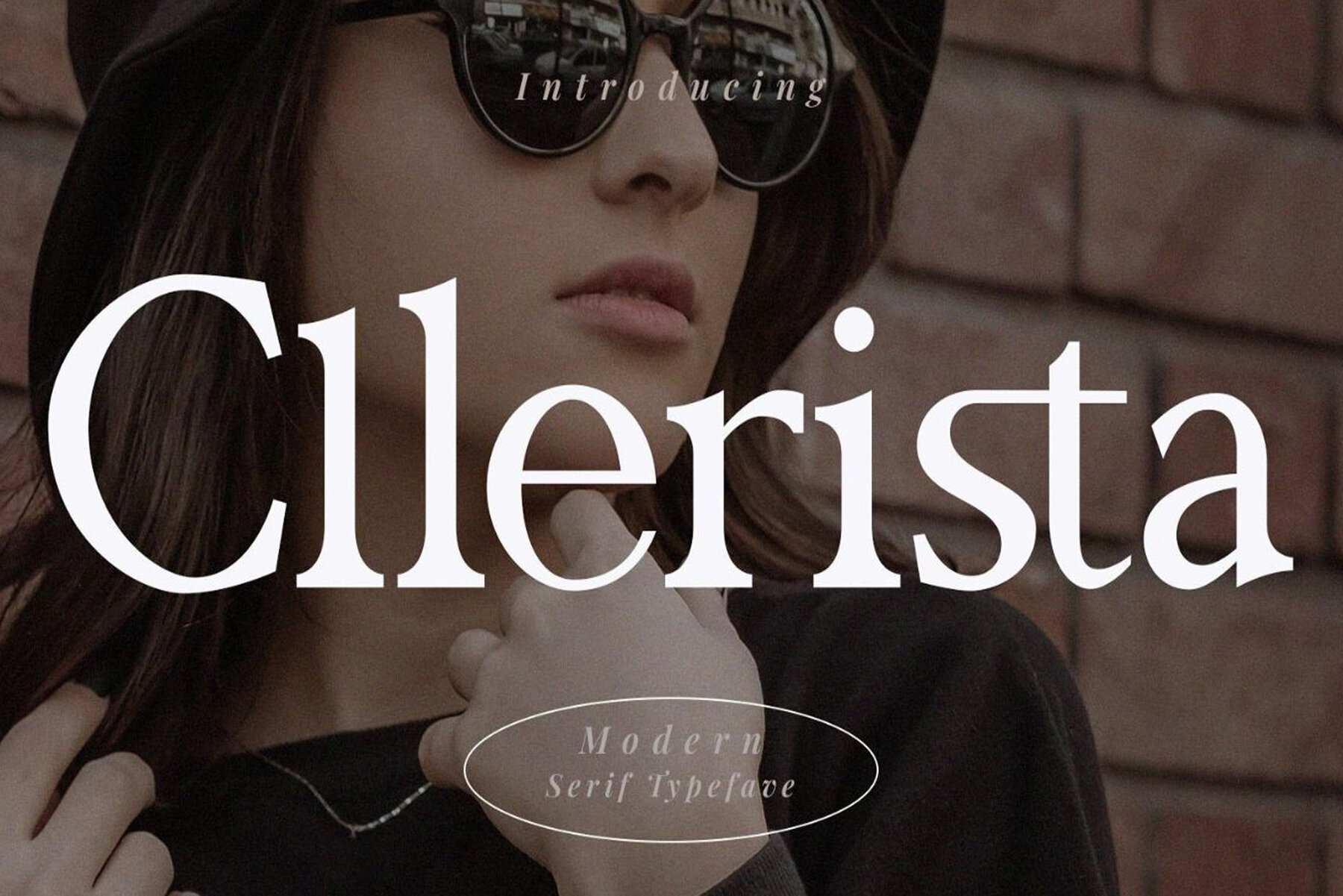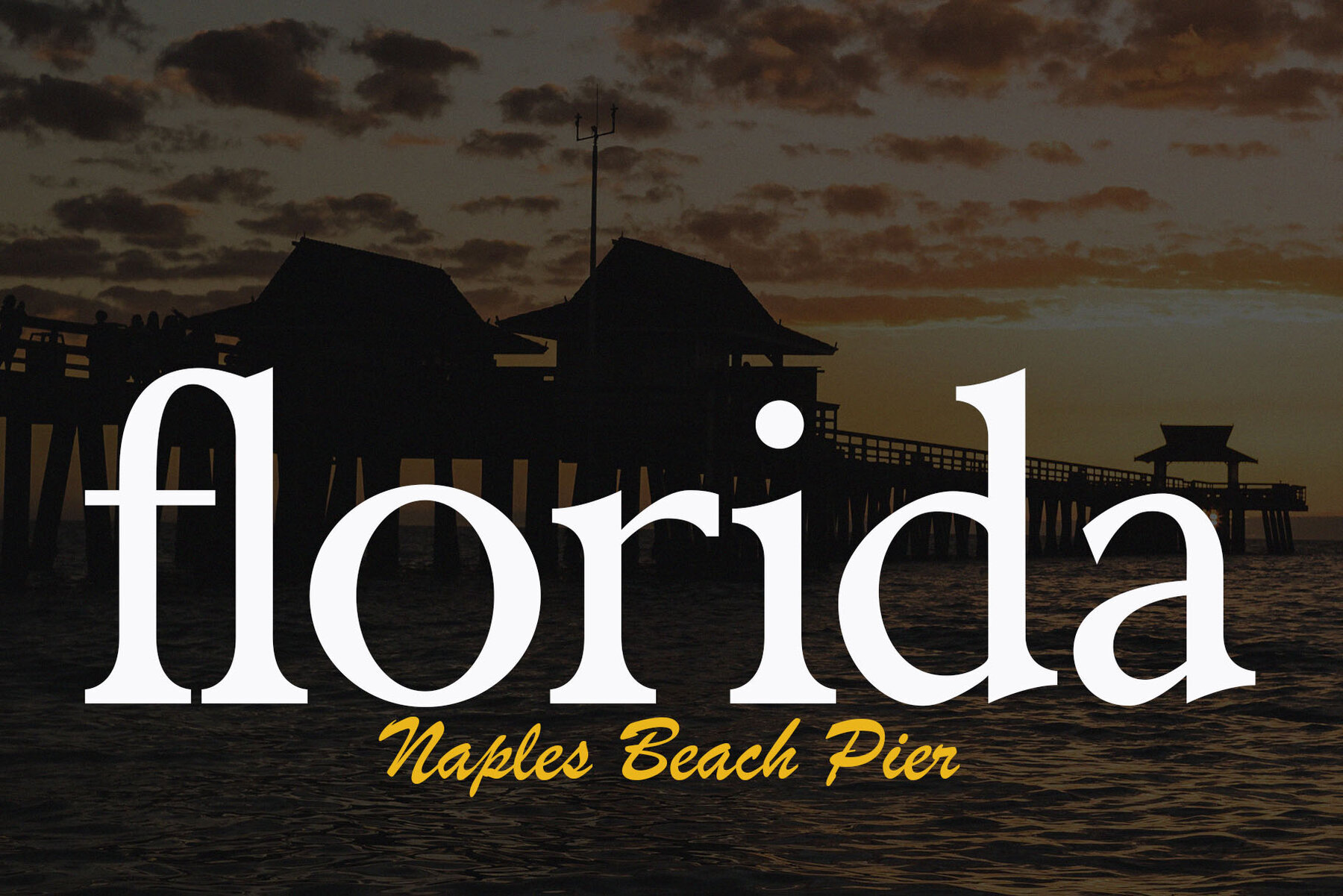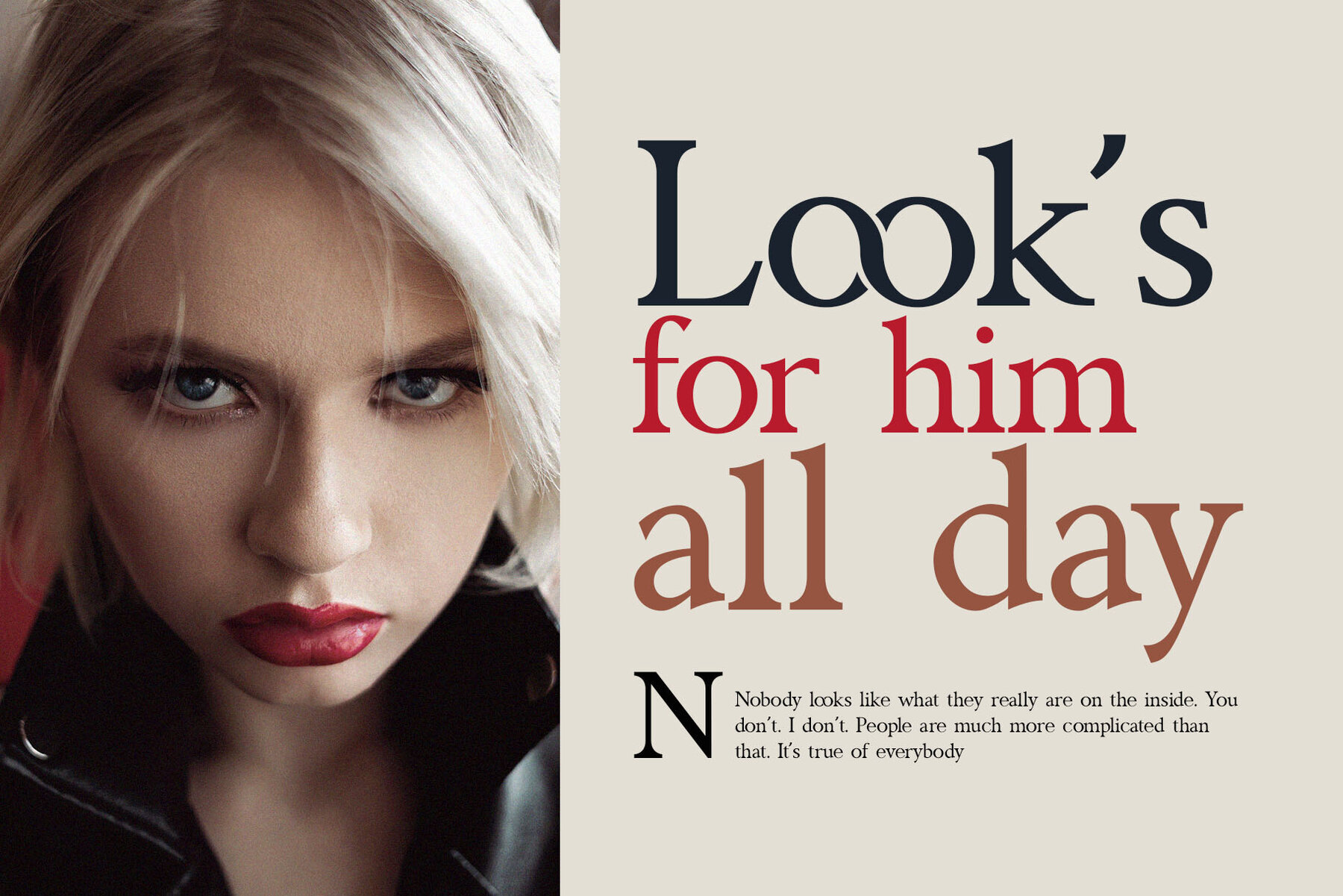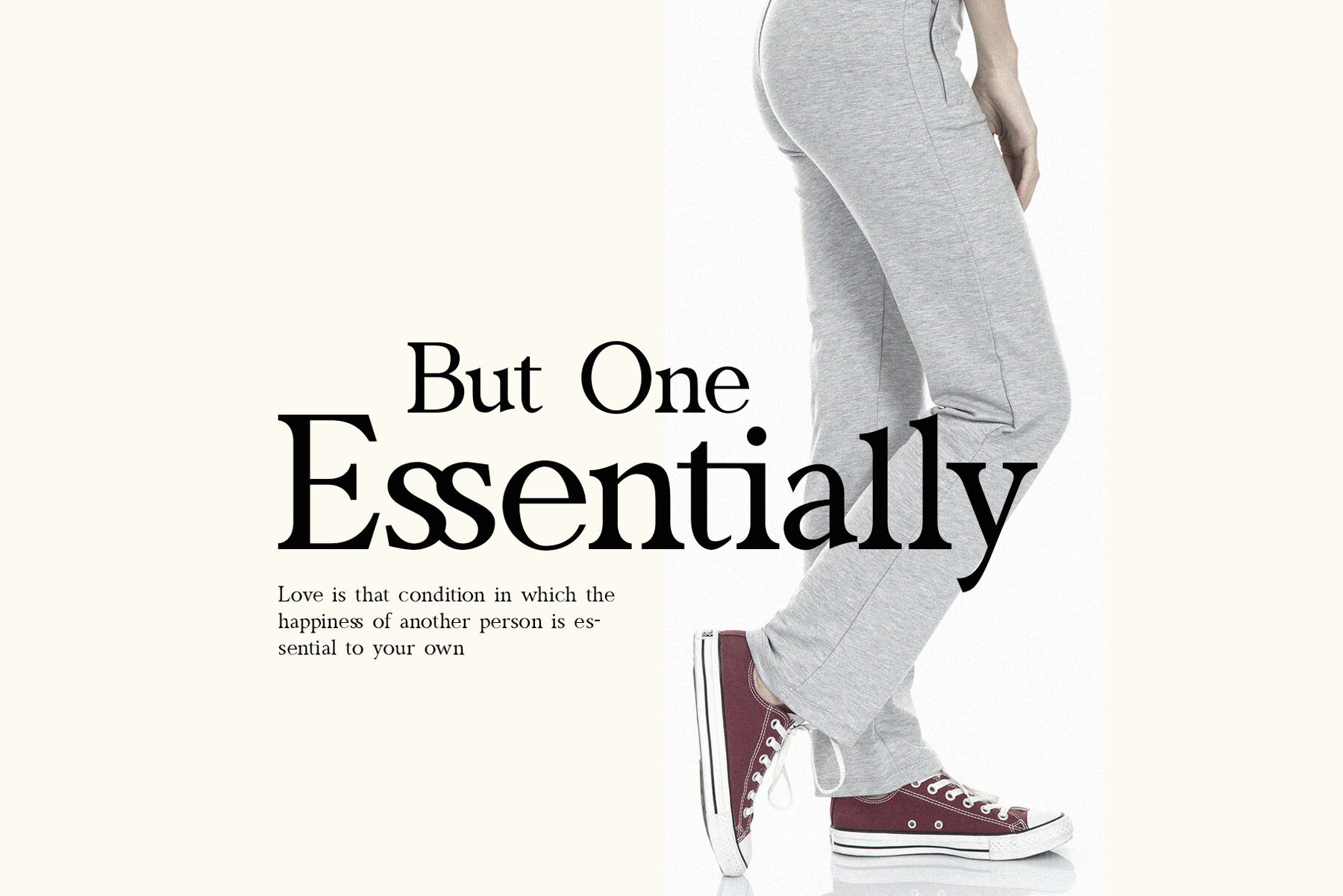
Cllerista Font
Cllerista Regular
Cllerista is a timeless serif font that artfully merges a modern aesthetic with a nostalgic charm. Ideal for an array of design projects, from logos and magazines to social media posts, Cllerista adds a touch of elegance and refinement. This font is perfect for those seeking a fusion of classic sophistication with a contemporary edge.Cllerista: A Sophisticated Blend of Classic and Modern Serif
Ideal for Various Applications